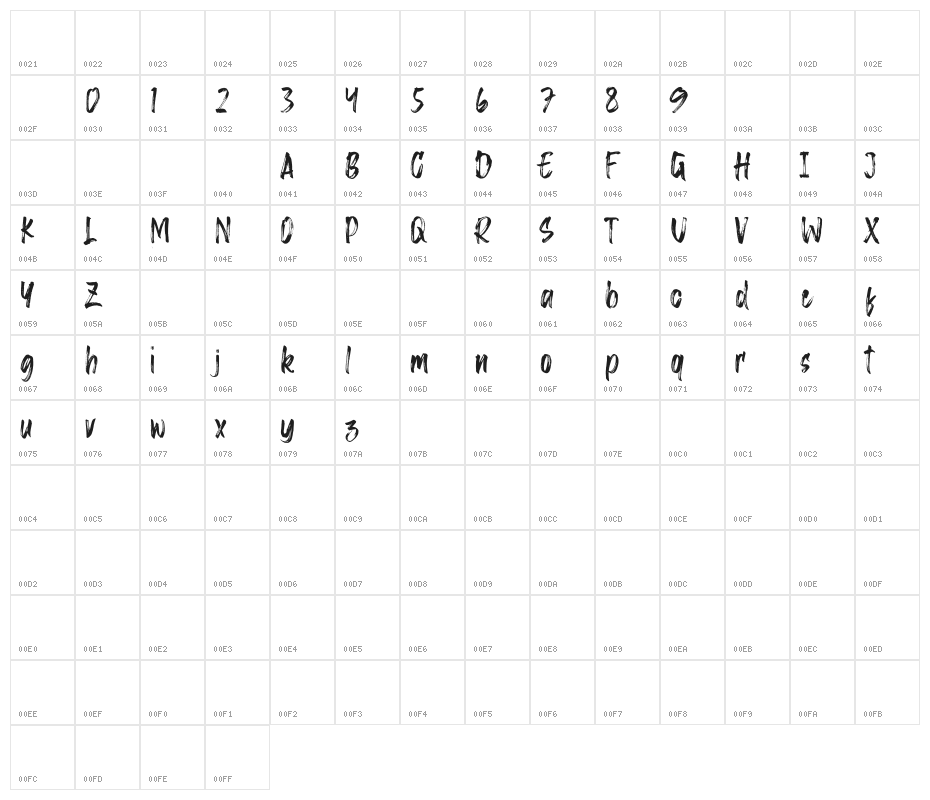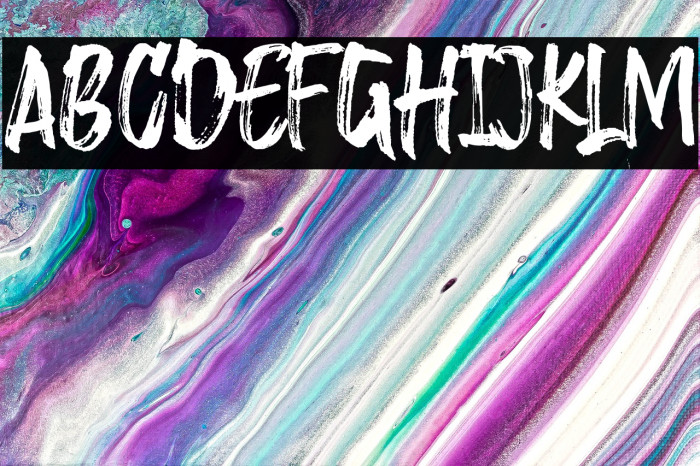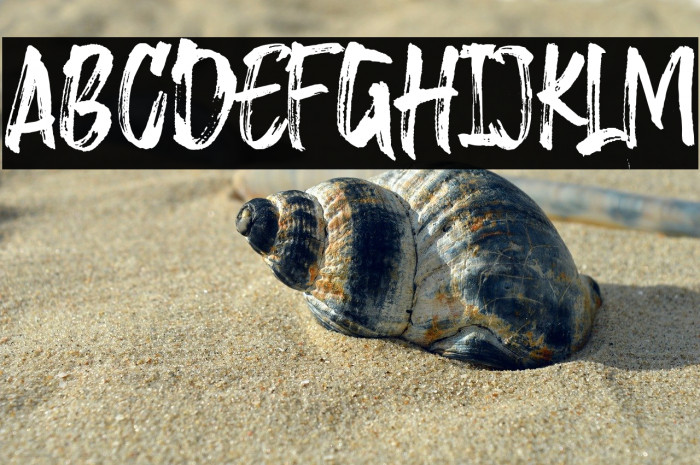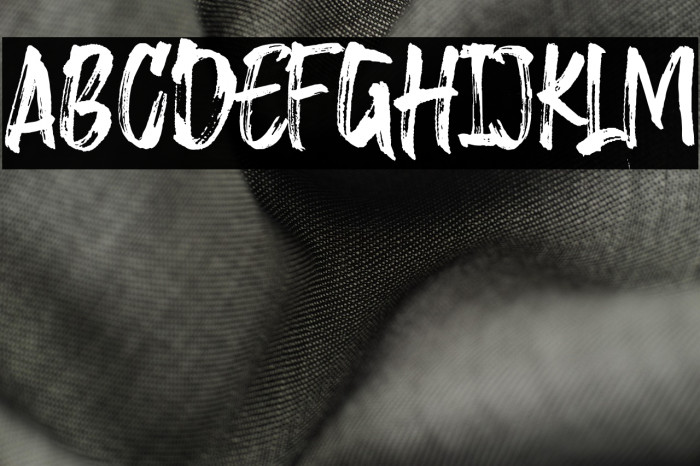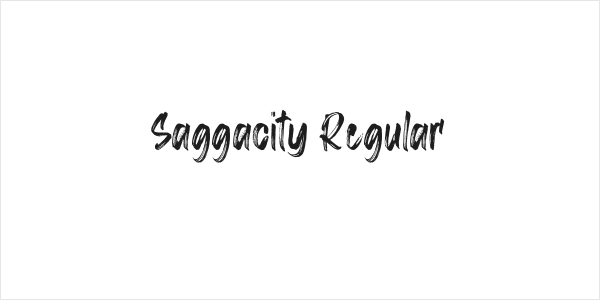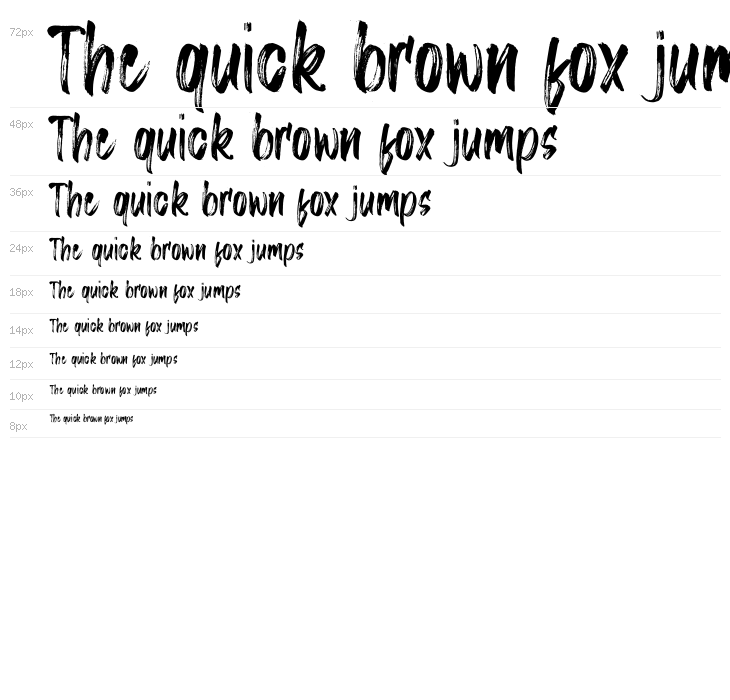
Saggacity Regular Font
Saggacity Regular Description
This font features a bold, brushstroke style that exudes energy and dynamism. The characters are crafted with a rough, textured appearance, giving them a hand-painted look. The uppercase and lowercase letters maintain a consistent style, with varying stroke thickness that adds to the font's expressive nature. The numbers and special characters follow the same artistic approach, ensuring a cohesive design throughout. This font is ideal for projects that require a bold, artistic touch, such as posters, branding, and creative designs.
| Proposed Projects | Ideal for posters, branding, creative designs, and any project needing an artistic flair. |